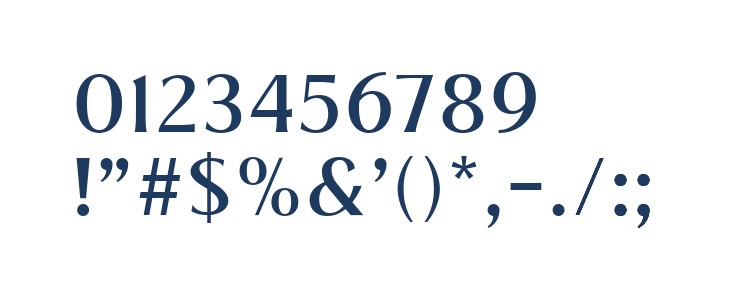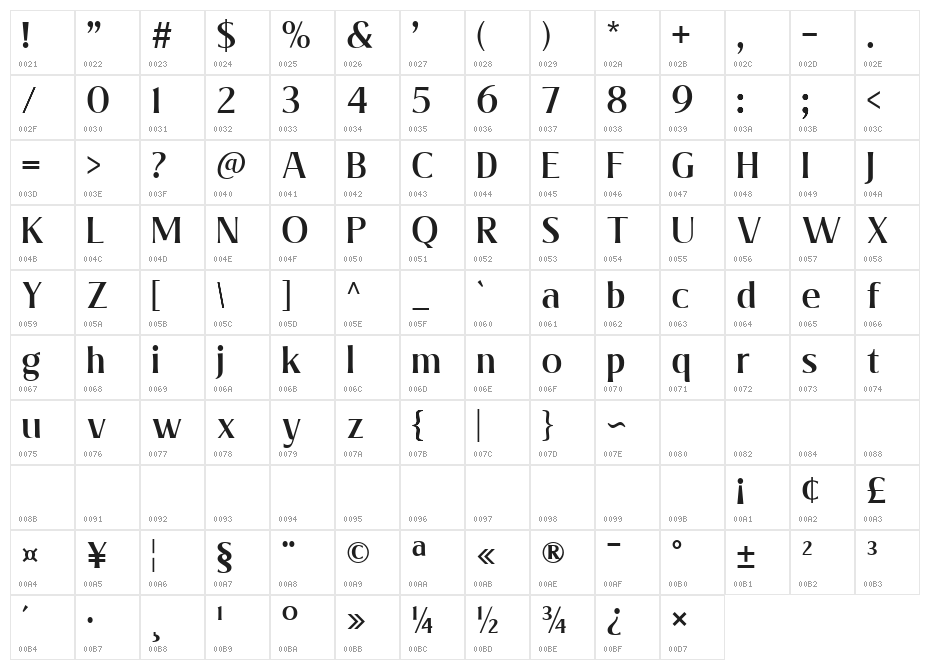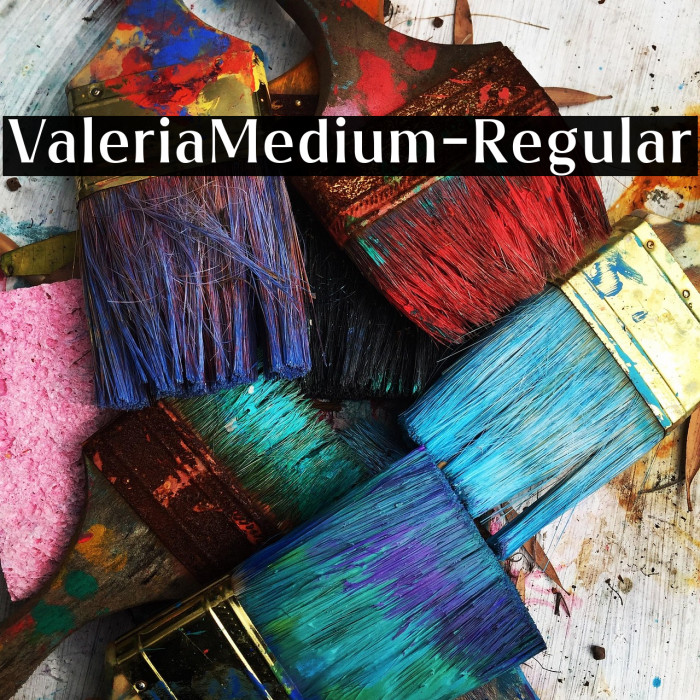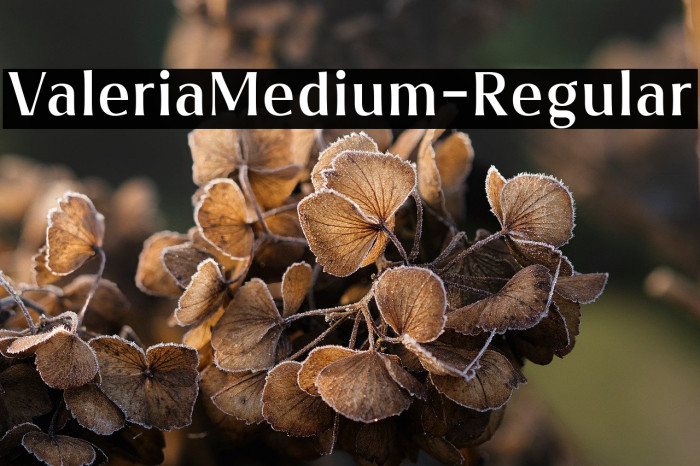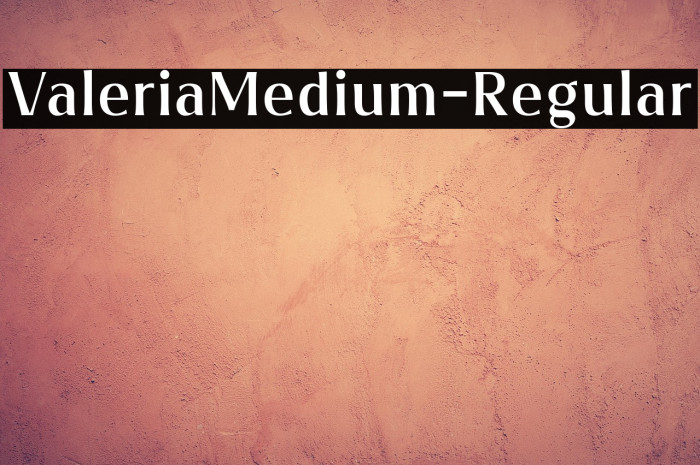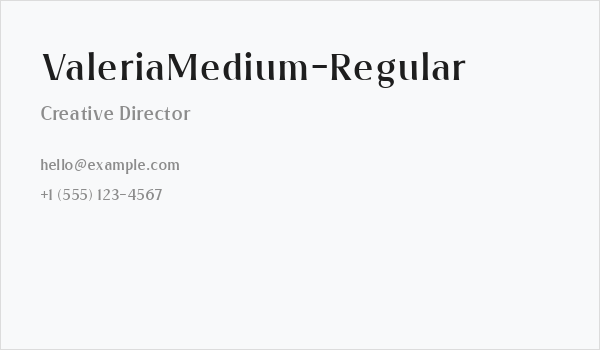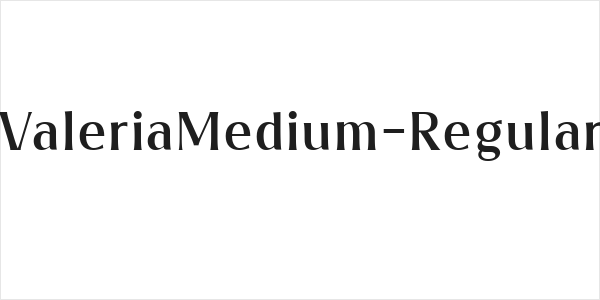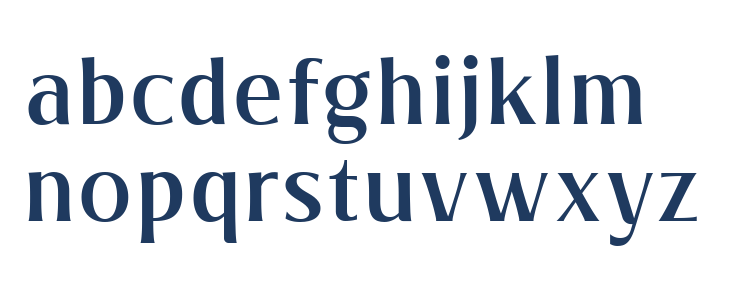
ValeriaMedium-Regular Font
ValeriaMedium-Regular Description
This font exhibits a refined and elegant serif style, characterized by its medium weight and balanced proportions. The uppercase letters are tall and commanding, with a slight contrast in stroke thickness that adds a touch of sophistication. The lowercase letters maintain a consistent flow, with gentle curves and a classic appearance. The numerals are clear and distinct, making them highly legible. Special characters are designed with the same attention to detail, ensuring a cohesive look across all glyphs. This font is versatile, suitable for both digital and print media, and can enhance the visual appeal of any project.